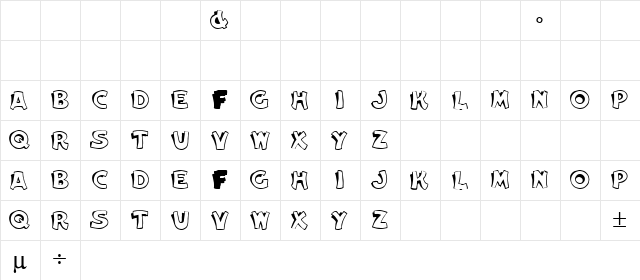
Cartoon Slant 6 Regular
Design Context for Cartoon Slant 6 Typeface
Cartoon Slant 6 has an approachable, lighthearted character — its loose, expressive forms are well-suited to children's content, casual branding, and fun-first design.
Font Pairing: Pairs well with a rounded or humanist sans for body copy, maintaining the friendly tone without relying on Cartoon Slant 6 to carry extended reading.
Pro Tip: Avoid using Cartoon Slant 6 for long passages of text — it works best for headlines, labels, and short calls to action.